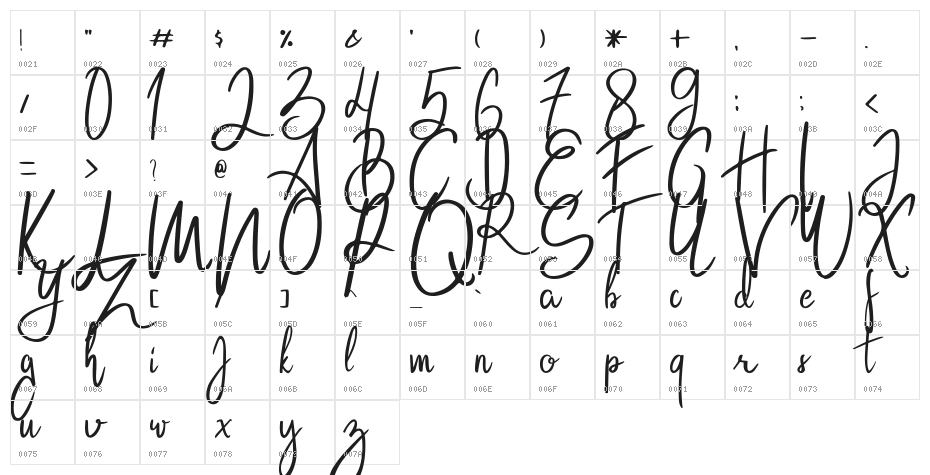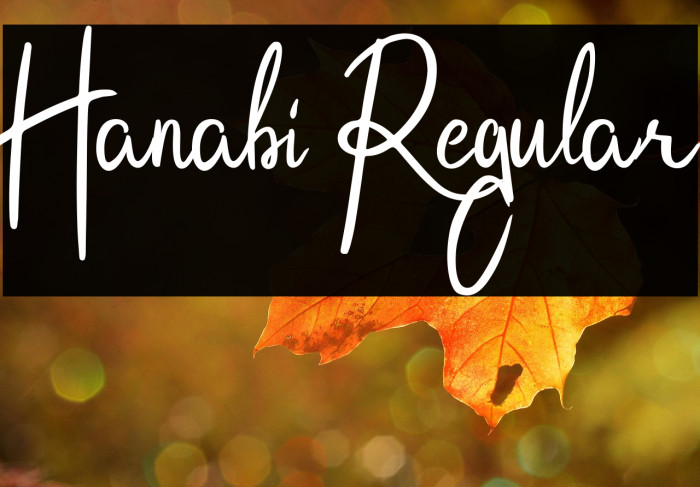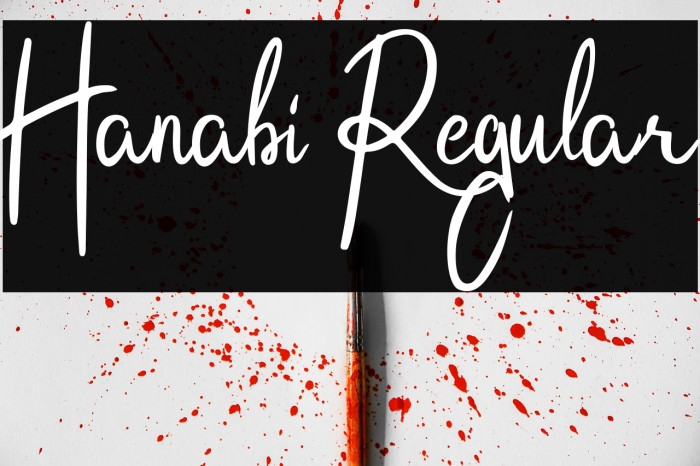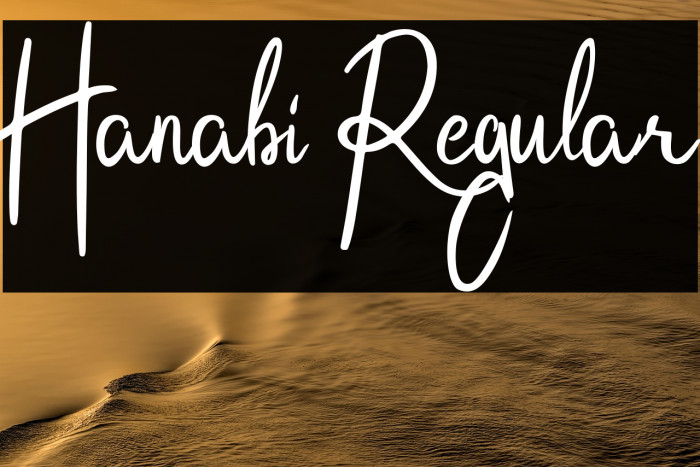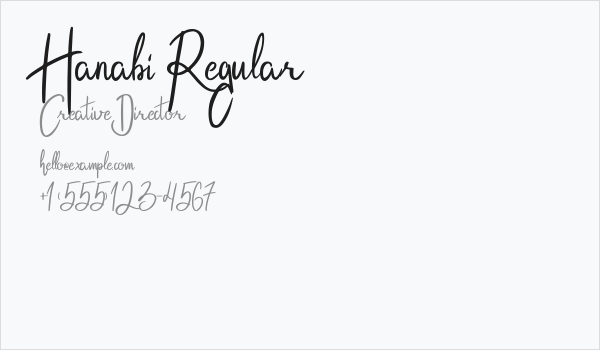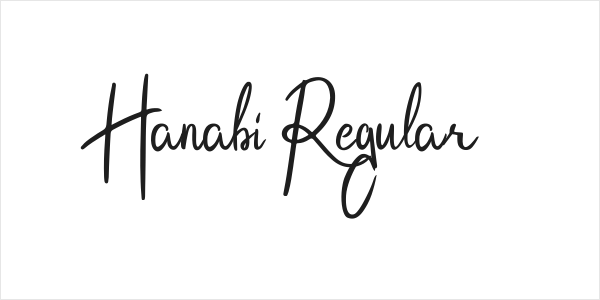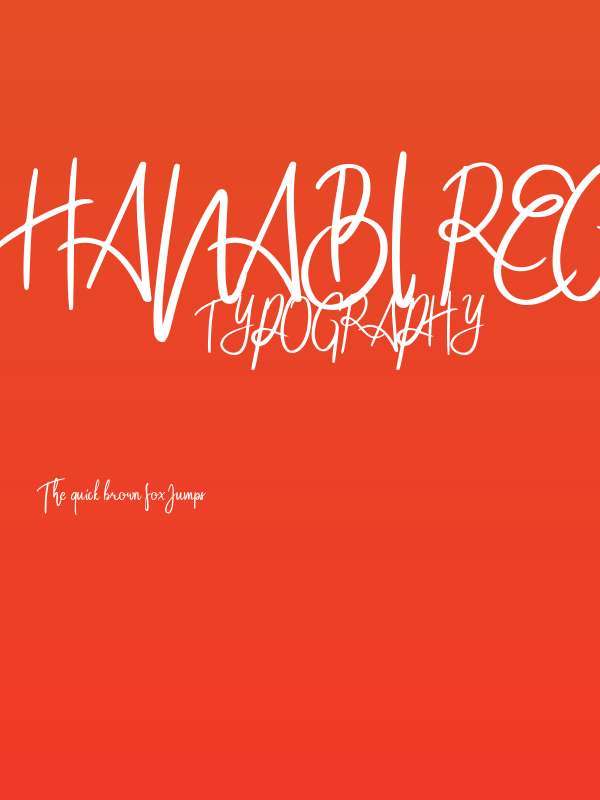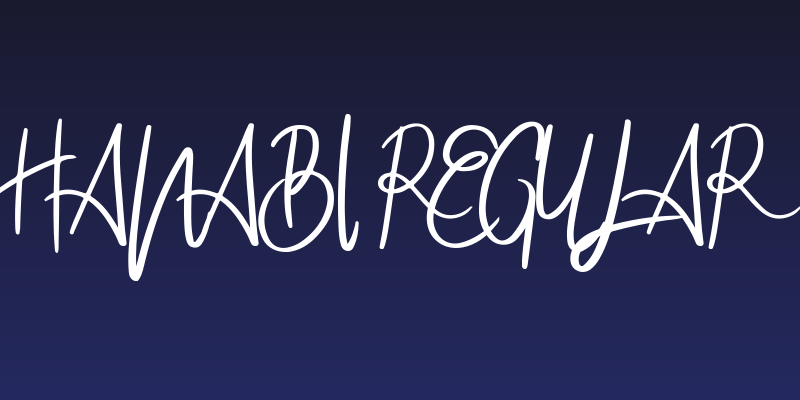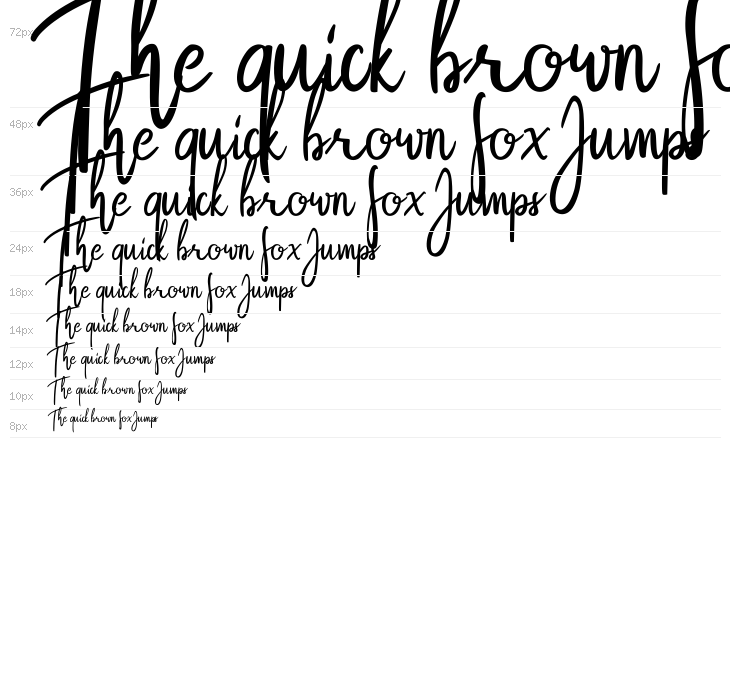
Hanabi Regular Font
Hanabi Regular Description
A lively and expressive handwritten font with a playful and dynamic style, featuring irregular strokes and a casual appearance.
| Proposed Projects | Greeting cards, invitations, personal branding. |